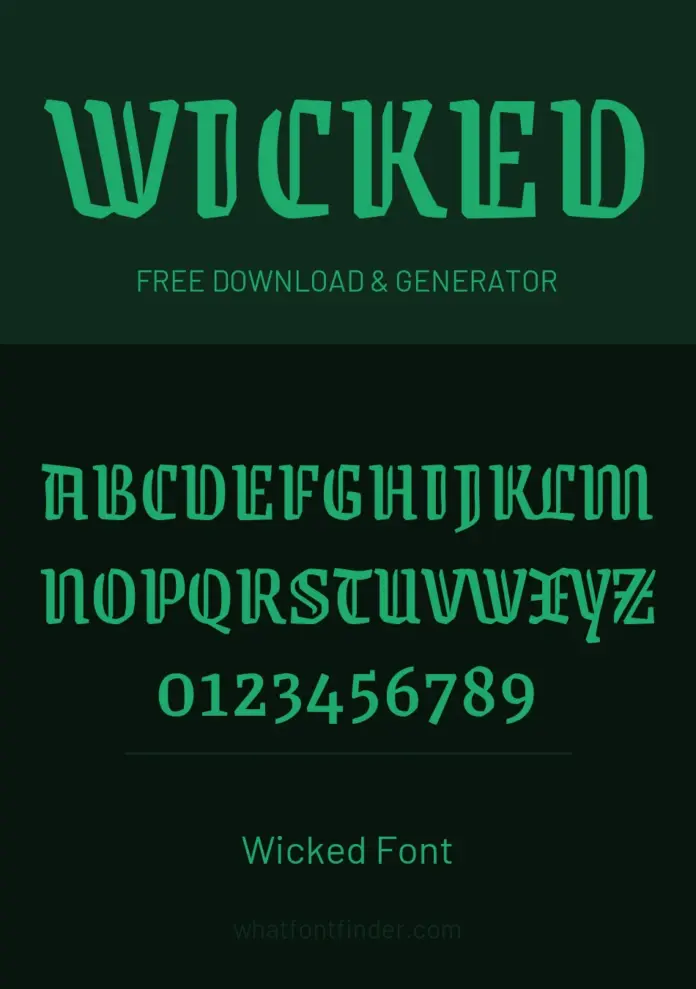
What font is the Wicked logo?
Custom lettering, drawn for the musical and carried into the film. It borrows from art nouveau and from the theatrical posters of the 1900s — the period the Oz stories come from — with tall, narrow forms and a slight gothic lean.
Because the reference is a historical style rather than one typeface, the free alternatives get closer here than they do for most film logos.
- Grenze Gotisch is the closest — a condensed blackletter with the same vertical pull as the logo, and variable, so you can dial the weight to poster level.
- Fascinate is period art nouveau, wider and more decorative, good for a subtitle or a programme heading.
- Amarante is lighter art nouveau with more curve, useful when the blackletter reads as too severe.
Where the style comes from
The Oz books were published in 1900, and the logo reaches back to that moment rather than to anything modern. Art nouveau lettering of the period was tall, narrow and organic, with letters that bend toward each other instead of sitting on a strict grid. That is why a straight blackletter looks too severe and a plain serif looks too neutral — the target is the curve between them.
It is also why the free options work unusually well here. The reference is a public historical style with many faithful revivals, not a single proprietary typeface someone owns.
Setting it well
- Condense the line and let the letters nearly touch — art nouveau titles were set tight, not airy
- Emerald green with a gold or cream edge does more for recognition than the typeface alone
- For a subtitle, drop to a lighter art nouveau face rather than repeating the blackletter, which gets heavy fast at small sizes
Is this the exact font used for Wicked?
Not exactly. The original lettering was custom drawn or is not publicly licensed, so the fonts here are close recreations. Grenze Gotisch is the nearest match we have found.